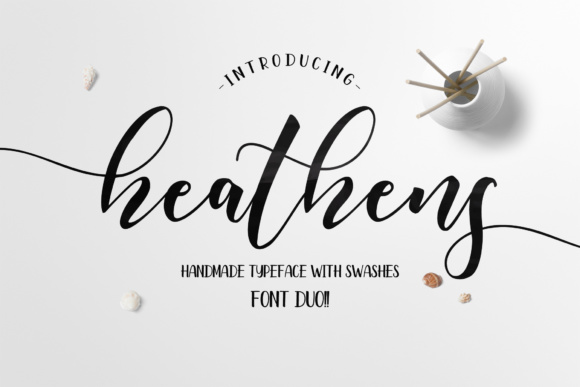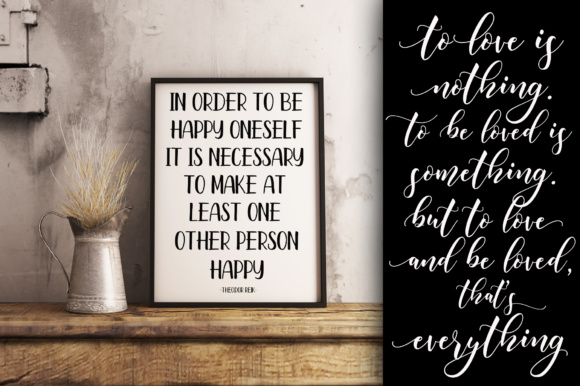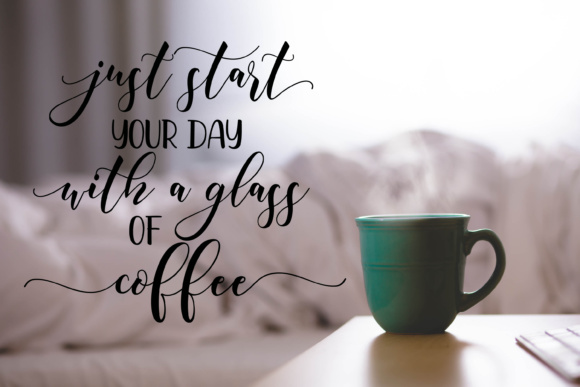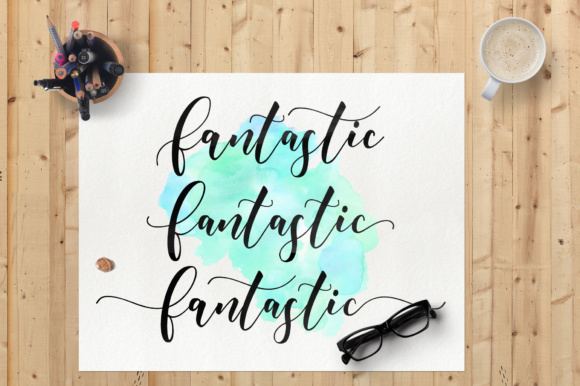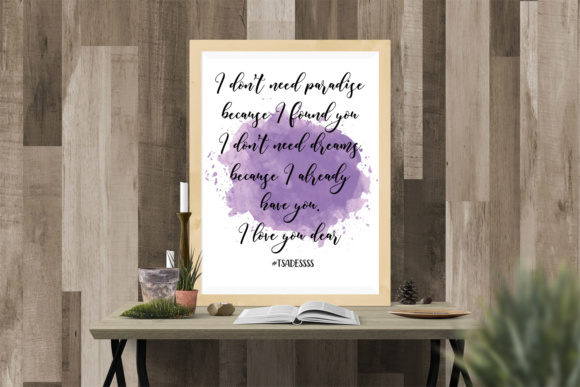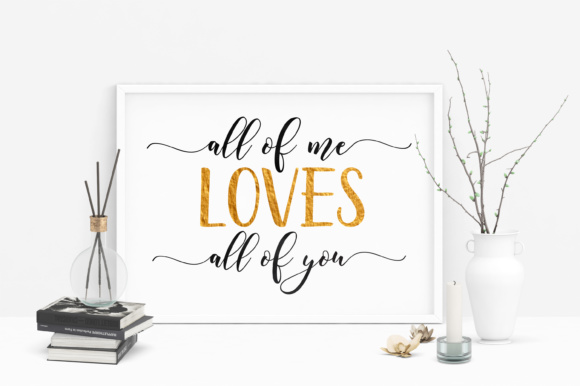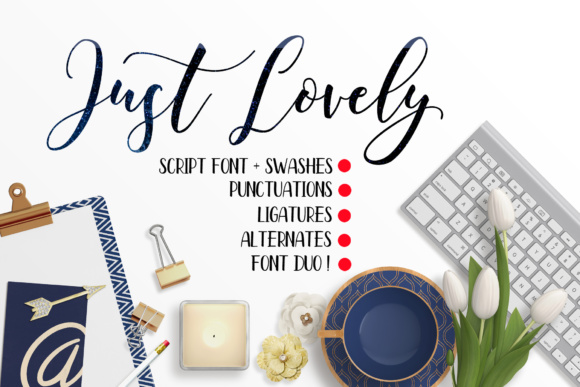
Heathens Script Font
About Heathens Script Font
Heathens is a fresh, modern calligraphy-style font. It features decorative characters and has a dancing baseline, making the texts flow on the screen.